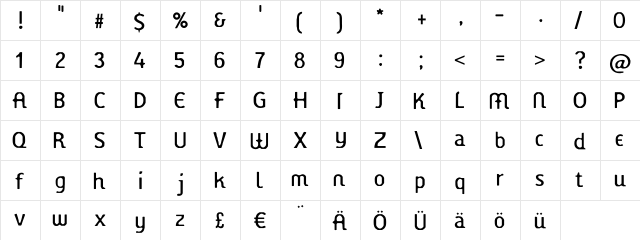
Hasenchartbreaker Regular
Design Context for Hasenchartbreaker Typeface
Hasenchartbreaker is a composed and adaptable typeface that performs quietly and consistently across a wide range of design contexts.
Pro Tip: Use Hasenchartbreaker in both headline and body roles to test its range before committing to a single application.